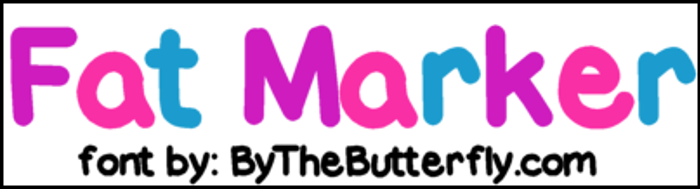
FatMarker Font
More info from ByTheButterfly
I got a request to make a font LARGER than my "Bigness" font... here it is :) Hope you enjoy. Its slightly different than Bigness as far as the shape of the letters.